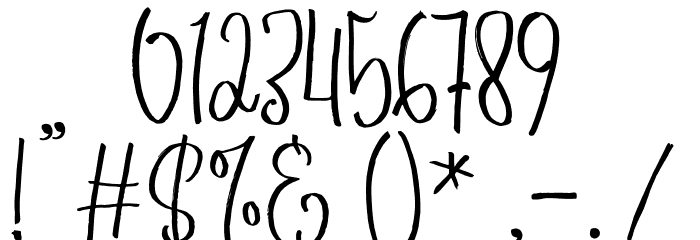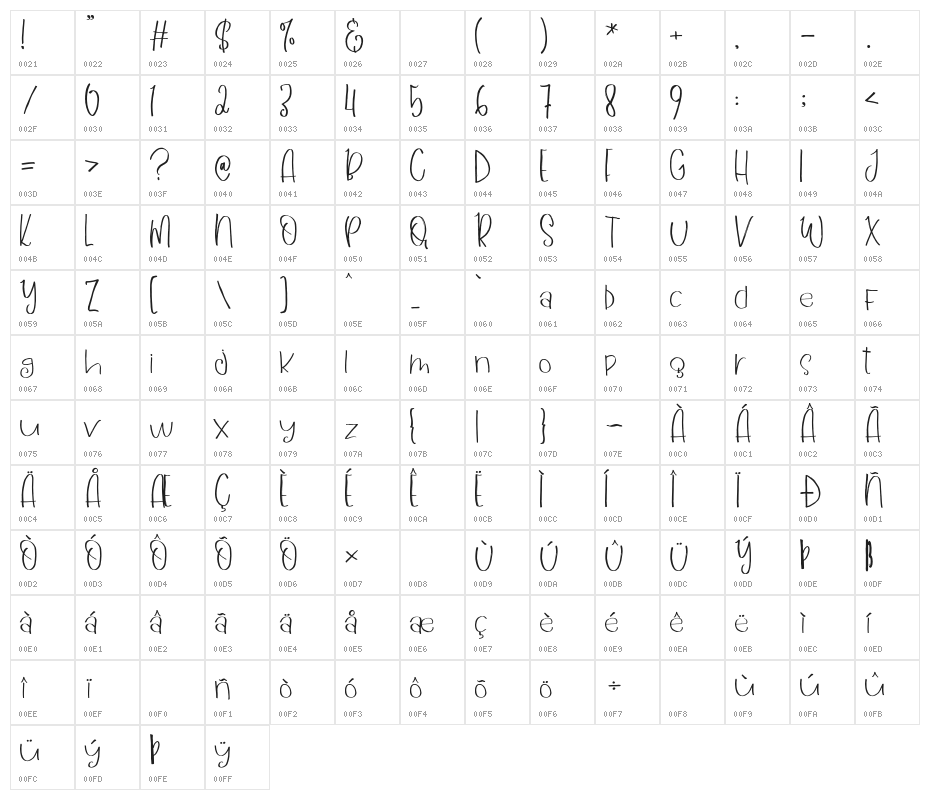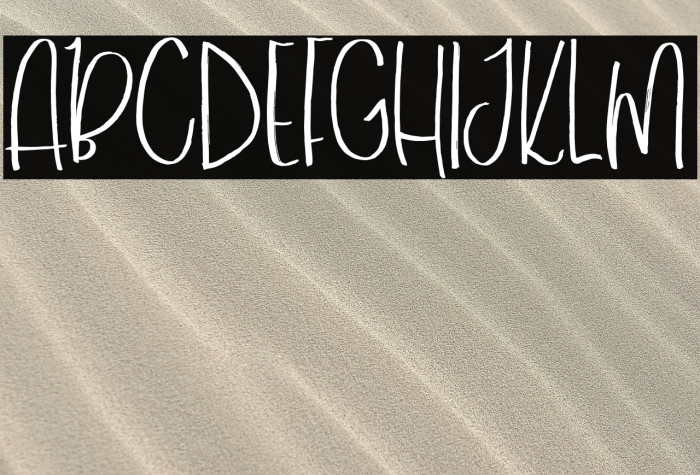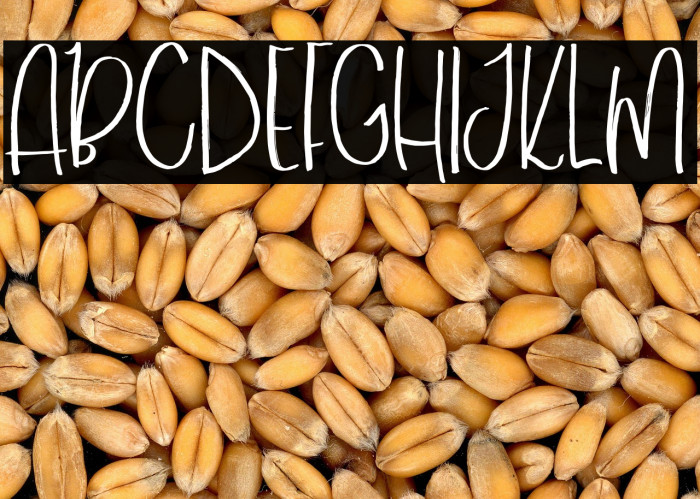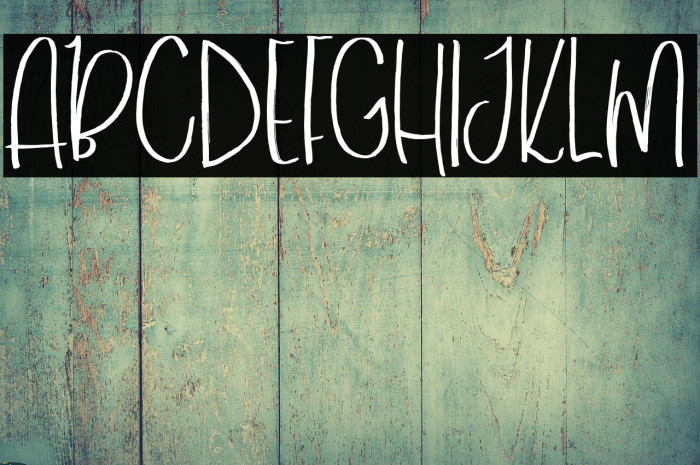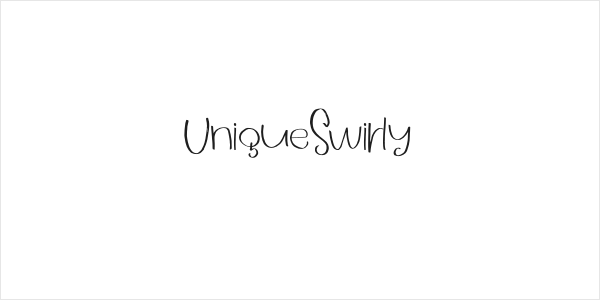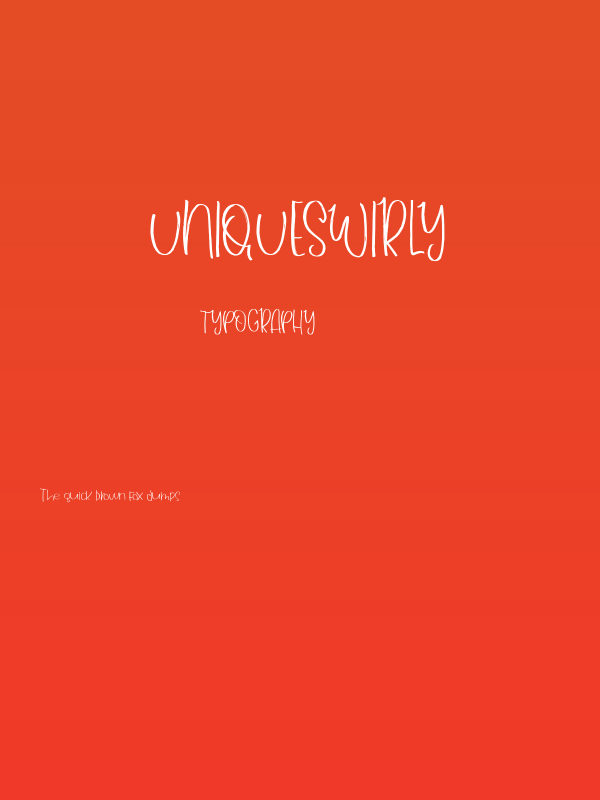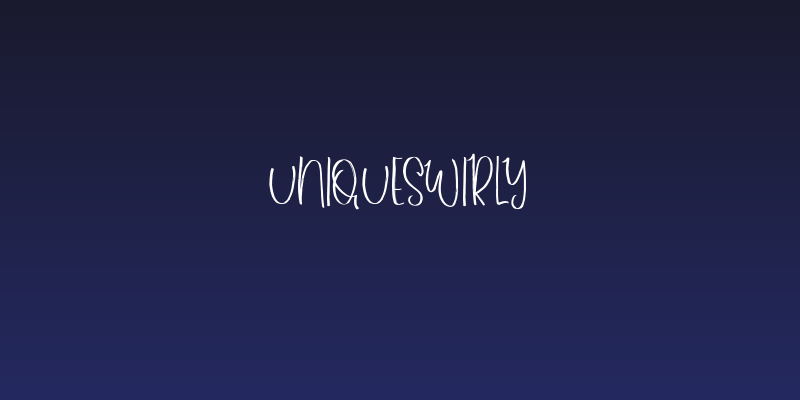
UniqueSwirly Font
UniqueSwirly Description
This font features a playful and whimsical design with a hand-drawn aesthetic. The characters are tall and slender, with a unique swirly style that adds a touch of creativity and fun. The uppercase letters are bold and prominent, while the lowercase letters maintain a consistent flow with occasional loops and curls. Numbers and special characters follow the same artistic theme, making the font versatile for various creative projects. The overall appearance is lively and engaging, perfect for capturing attention.
| Proposed Projects | Ideal for children's books, greeting cards, playful branding, and creative posters. |